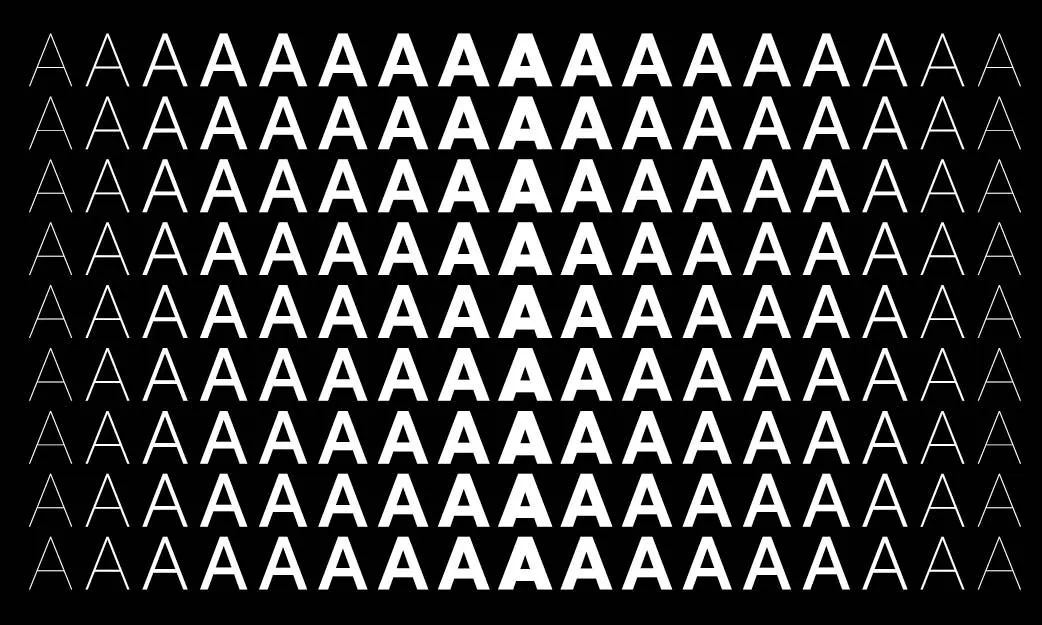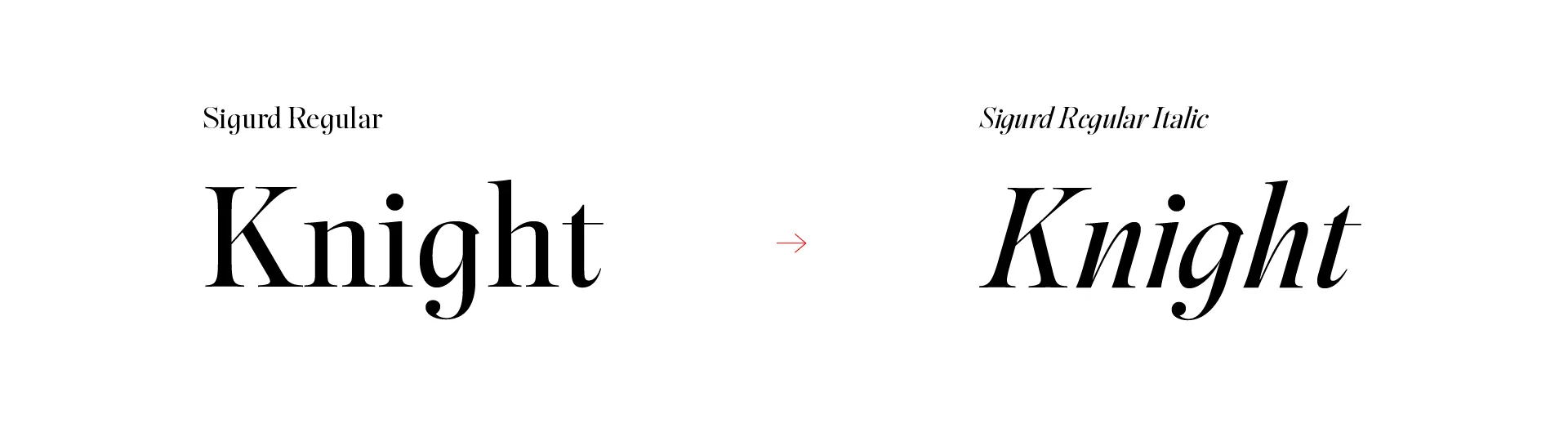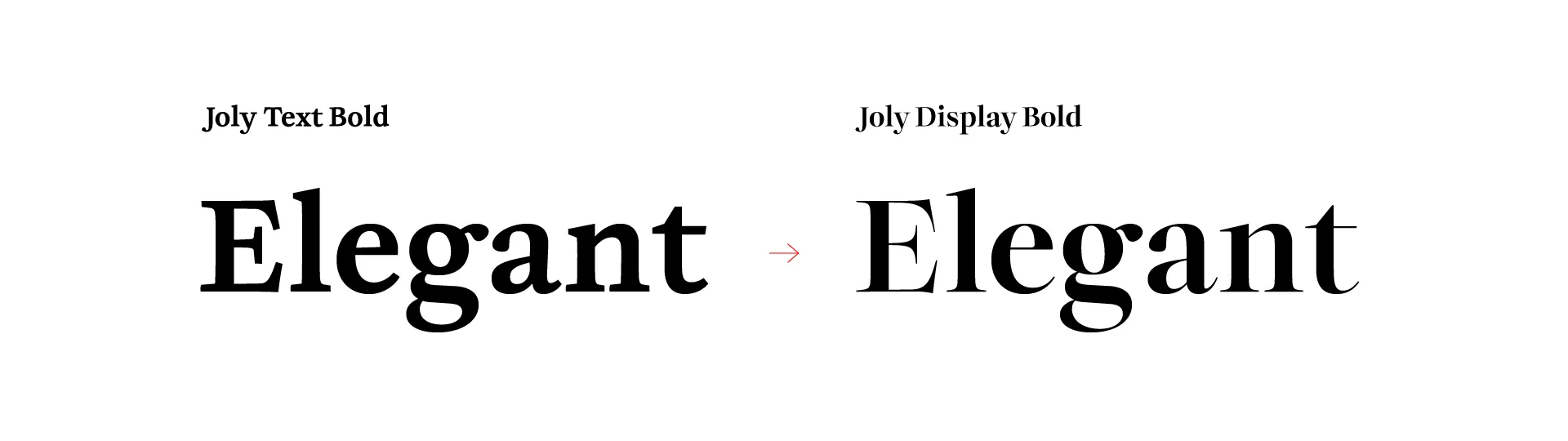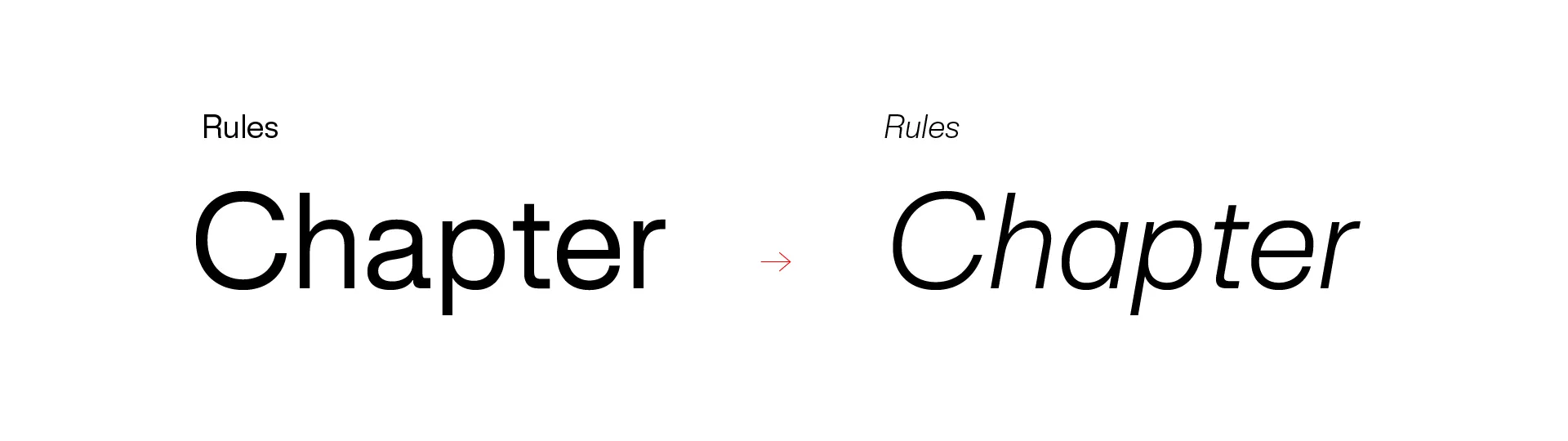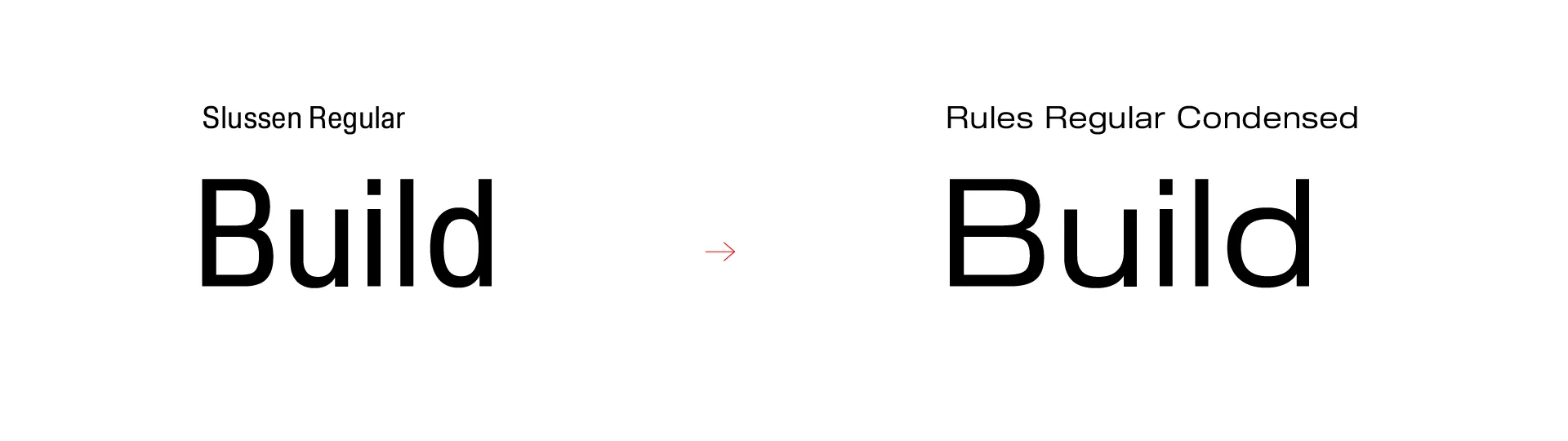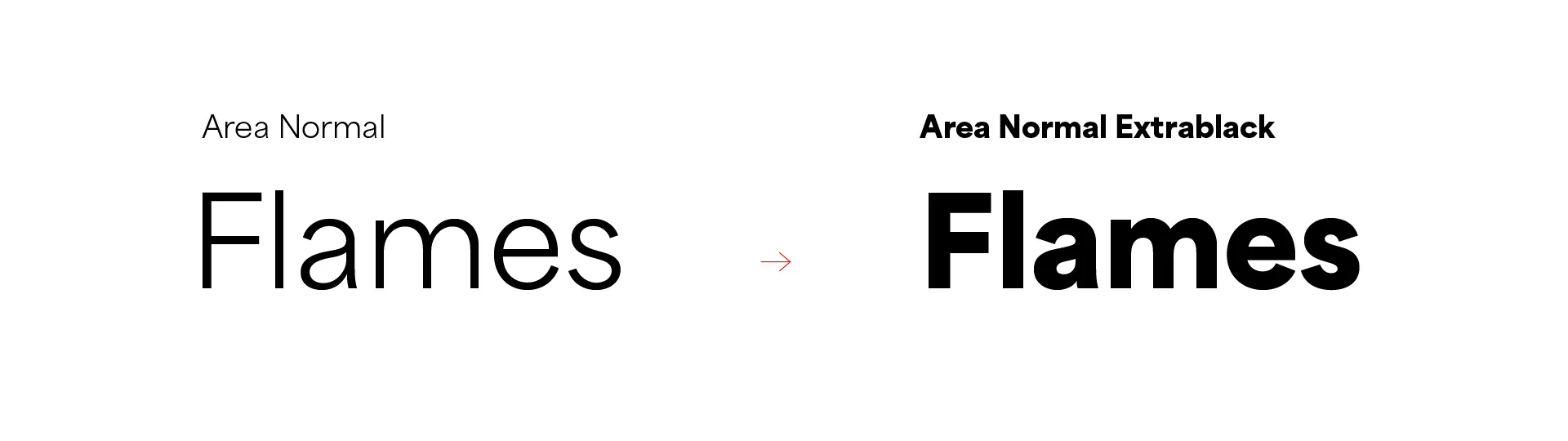
Interpolated history, rethinking font design
Introduction
Few typefaces are published in a single style today. The concept of a typographic family has taken over, helped by the latest features offered by type design software: extending a single typographic design into a large family has become a breeze when the initial design follows certain rules. Yet, it has never been such a transparent concept.
We could define a typographic family as a set of type designs united by homogeneous criteria but declined according to various styles that can include sets of weights, slants, width, optical sizes, etc.
But since Gutenberg and during a few centuries, typography exists according to a unique style declined in different optical sizes; each size being an adaptation of a design according to optical corrections. Aldus Manutius (1449-1515) was the first to cast an italic typeface modeled on the Italian chancery script. If we do not yet speak of a family concept, we note that a unity is emerging between the Roman and Italic styles. But during centuries, type design remained the preoccupation of book printers, publishers and booksellers: text was all roman or italic, no bold style except if you don’t notice that it’s not the same font.
In the beginning of the 19th century, industrialization improved the need for advertising, and so, to break the transparent logic of book design. International exchanges allowed type foundries to distribute their own version of standards type design. And so appeared the first font collection with various styles : roman, italic, bold, sometimes with ornate or fancy variants.
However, it is still with intuition that the type designer conceives his typefaces, taking care of a coherence that is judged by the eye only. It was not until 1957 that a young Swiss typographer living in Paris proposed to Charles Peignot, from French foundry Deberny & Peignot, a typeface designed according to a pre-established and reasoned plan. Adrian Frutiger was putting the first pieces of what would become Univers during his studies at the Kunstgewerbeschule in Zurich (1948-1951) Designed as a family of 21 styles corresponding to 4 weights, 4 width and 7 italics, the drawing task should be a real mess. In order to solve the problem, Frutiger imagines a progression following a geometrical variation made visible thanks to curves connecting the points of each glyph.
This way of designing a family is still the norm today, even though computers have entered the production process.
Multiple Master: the avorted standard
Since the early 1990s, typographic design software has generally used interpolation tools to obtain intermediate designs from two extreme masters. However, the user was left with a set of files corresponding to each style. Thus, Frutiger's Univers was deployed in each computer as 21 files for the 21 series. In the middle of the 1990s, the engineers of Adobe understood that a development of the PostScript Type 1 format would make it possible to include these masters within a single file and would offer to the user to directly parameterize the interpolations of each criterion.These are the Multiple Master fonts. Univers becomes a single digital file made up of masters for its vertical axis (roman to italic), horizontal (condensed to extended), and its weight (light to ultra black).
On the application side, after its installation in the operating system, a palette appears in the software showing two or even three axes visualized as a sliding horizontal bar. If the use did not develop beyond 1999, the flexibility of the approach made it possible, for the needs of a title, a logo or for precise cases, to overcome the restrictions specific to the questions of the choice of the typographic designer. The printing of blank text on a dark background is difficult, the graphic designer can then increase the weight of the text appreciably in order to mitigate this possible problem. Theoretically, the type designer moves from a design creator to a creator of a system that the user takes over for use.
As with every tool, some designers use technology in a creative way. Interpolation is also a progression from a shape to another one. It could be basically seen as a metamorphosis. Lucas de Groot was one of the first type designers during the end of the 1980’s to explore the positive benefits of interpolation in font development. Pushing the boundaries of interpolation, he plays with the curves in order to produce a font able to evolve into figurative illustrations. The various steps of the interpolation could be seen as the various frames of an animated erotic cartoon. Yes, MoveMeMM, published in 1994 in Fuse issue 11, is perhaps a private joke of a type designer proving his skills as a type developper and illustrator.
The failure of Multiple Master fonts is as much due to the difficulty of rewriting software to incorporate the new file standard, as to a lack of relevance at the time of the beginning of the web. The development of Web 2.0 and CSS, which occurred shortly after MM fonts, will bring about a changeover. Indeed, the development of the web and smartphones requires an automation and an adaptation of the design to many terminals: from the horizontal screen of the desktop, to the restricted and changing definitions of tablets and smartphones, the typographic management quickly becomes a headache for designers. The possible interpolation of MM fonts appears as a dream solution.
Variable Font: creative interpolation
In September 2016, Adobe, Apple, Google and Microsoft announced the release of new specifications for the 1.8 standard of the Opentype format. This latest version corresponds to the incorporation of features specific to the TrueType GX format font variations of Apple. Under this name was already hidden a format capable of interpolation but reserved only for the Macintosh operating system.
The union of the four computer giants will allow a better development of this new format: indeed, almost all the computers in the world will be able to manage the new format in a transparent way and the deployment in the professional and personal era is ensured by the giant of desktop publishing and the net.
The Variable Types in this new Open Type format allow:
About the author
Sébastien Hayez was an art director and graphic designer before becoming an art teacher and an independent researcher in the field of graphic design and type design history. His main topics are the history of logos, square books, modernism, and the minimalist italian designer AG Fronzoni 1923-2002. You can read his contributions in the pages of magazines such as Etapes, TheShelf Journal, Pli, Kiblind, Yellow Submarine, Fiction, or listen to his lectures for Les Rencontres de Lure or Fonts & faces #7.